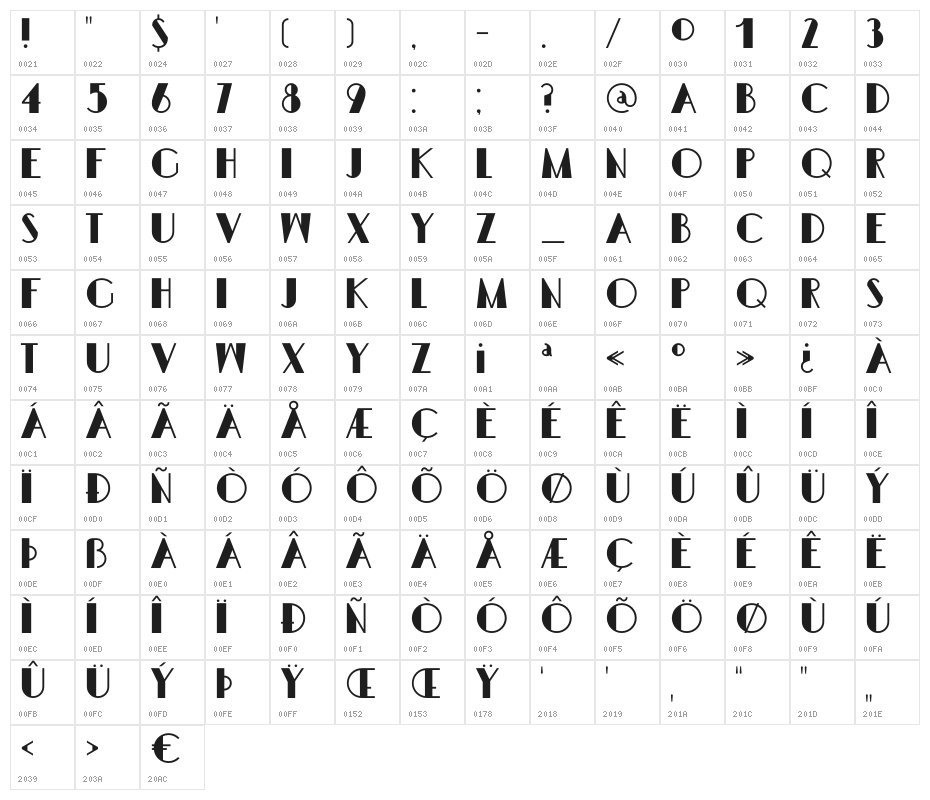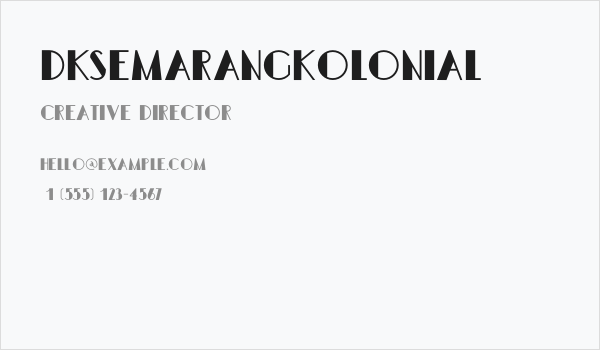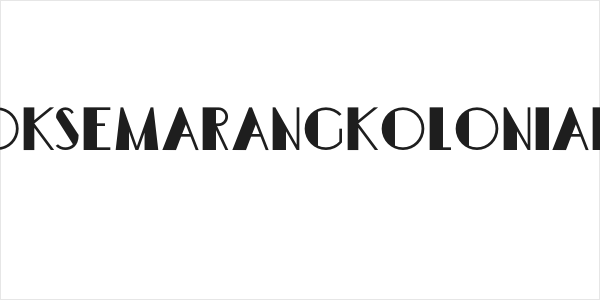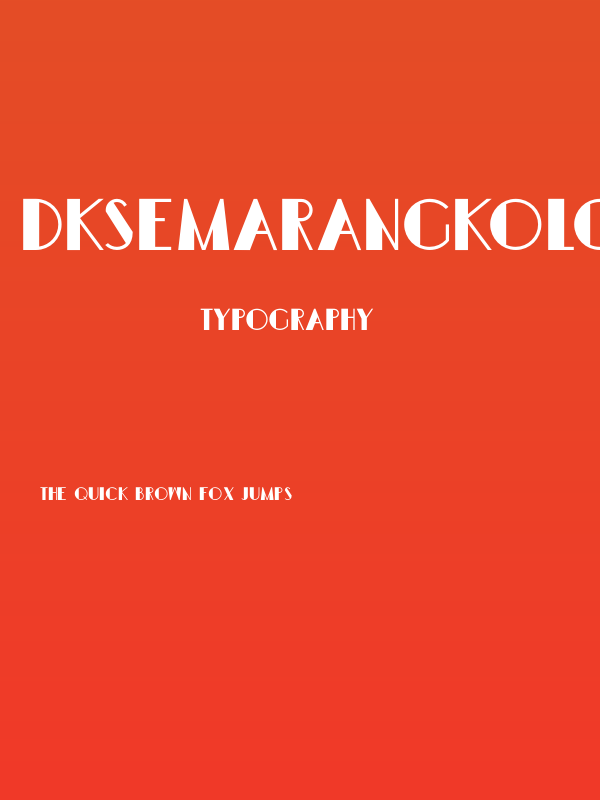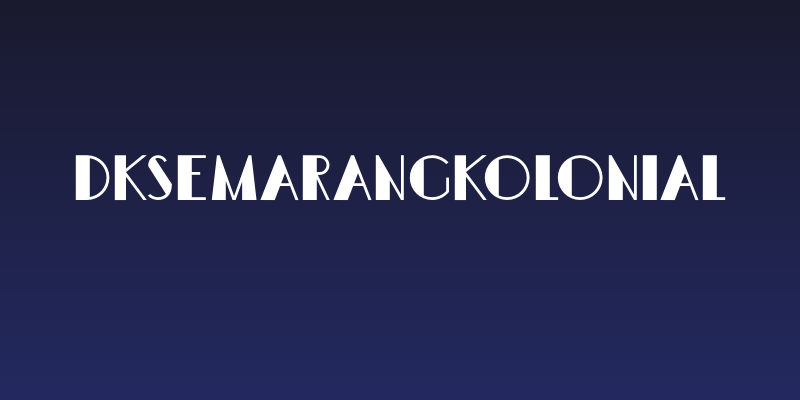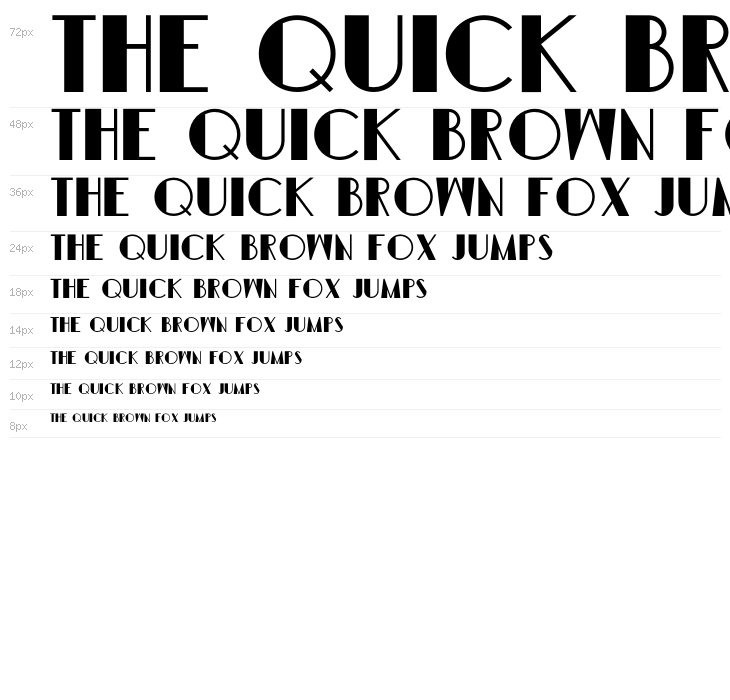
DKSemarangKolonial Font
DKSemarangKolonial Description
This font features a bold and striking design with a strong geometric influence. The uppercase letters are characterized by sharp angles and clean lines, giving them a modern and assertive appearance. The lowercase letters maintain a similar style, ensuring consistency across text. Numbers are bold and easily readable, with a unique flair that adds character. Special characters are designed to complement the overall aesthetic, making them suitable for various design needs. The font's style is both decorative and functional, making it versatile for different applications.
| Proposed Projects | Ideal for branding, posters, headlines, and any project requiring a strong visual impact. |